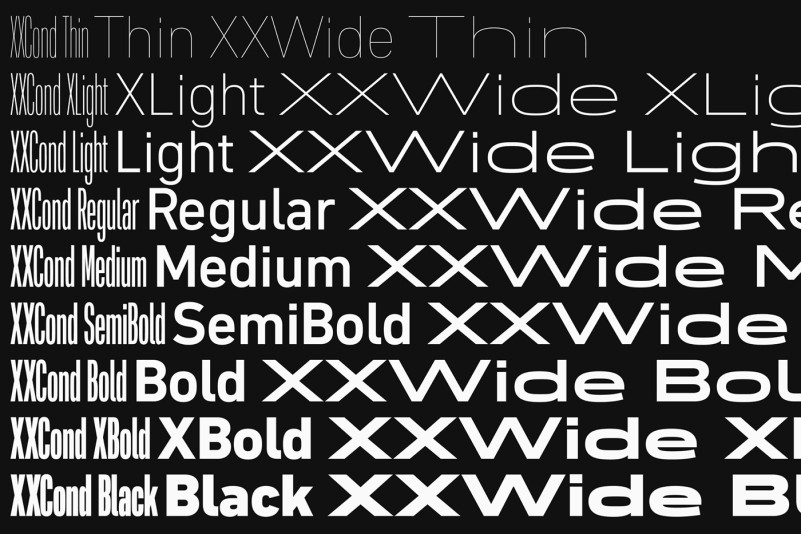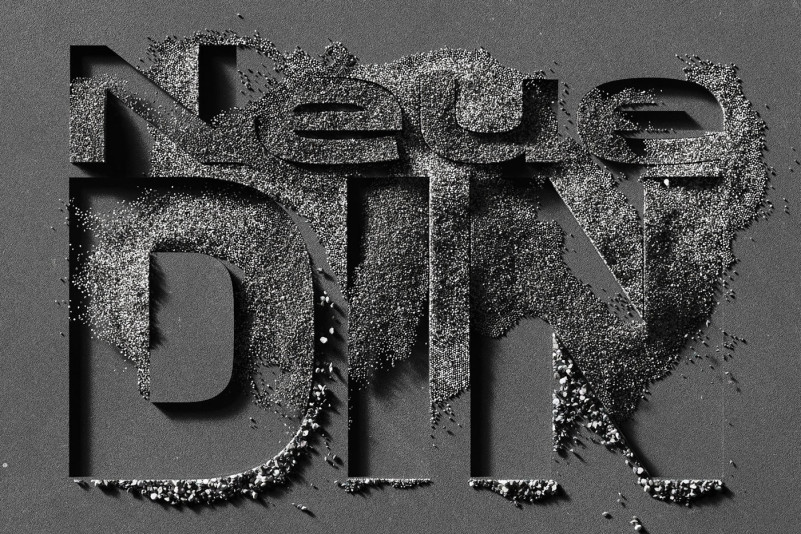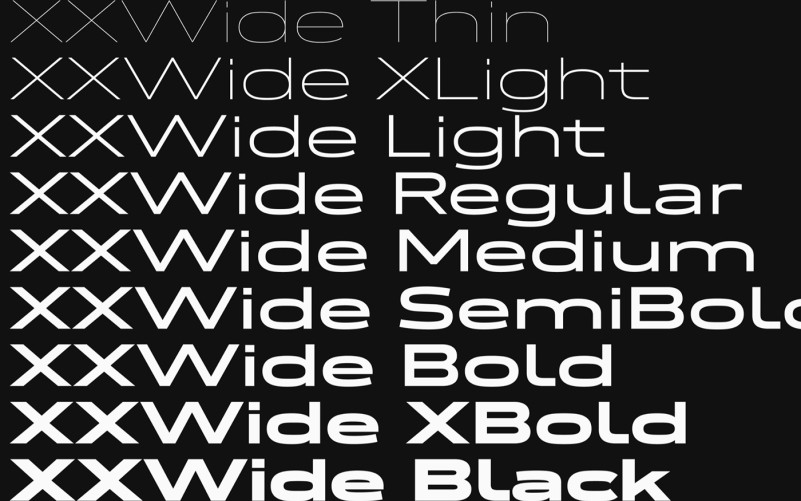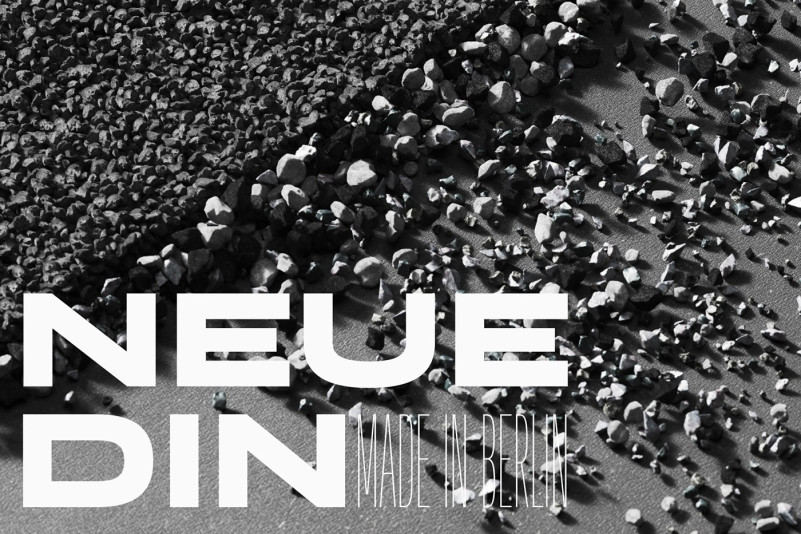
Neue DIN Font Family
Neue DIN Sans Serif Font is an almost monolinear no-frills Neo-grotesque design. Neue DIN follows in the footsteps of the original design from about 100 years ago, but it has been completely reimagined and redesigned. With a compact overall impression, the brand new typeface has extreme widths, and an all important touch of elegance.